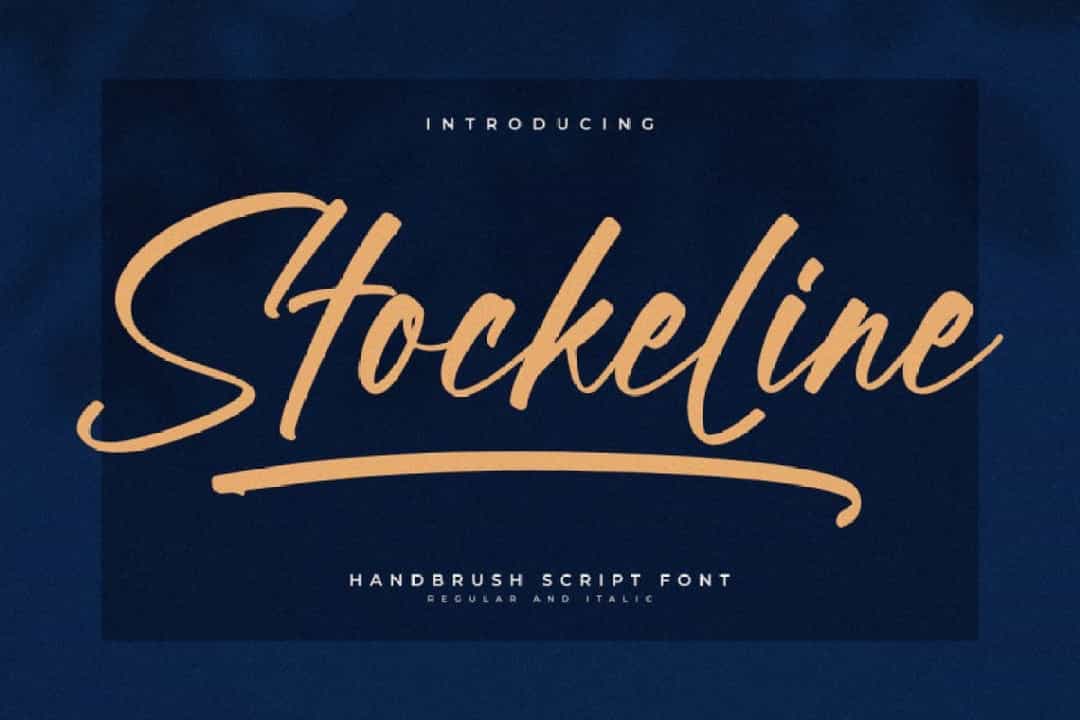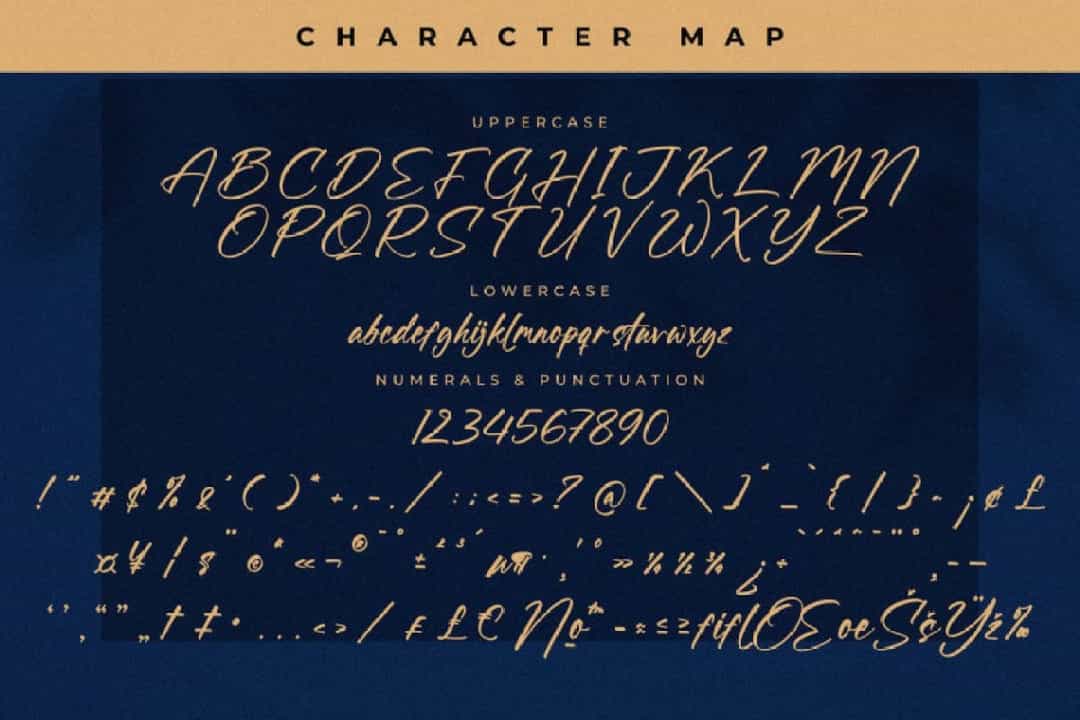
Discover Stockeline Font, part of the Brush collection—a versatile and unique font perfect for adding a personal touch to your projects. Download it for free and enjoy crafting designs with style, from invitations to social media posts. This font is available exclusively for personal use, giving you the freedom to create without limits. Unlock your creativity with Stockeline Font today!
Glorytype Studio’s Stockeline Handbrush script Font is perfect for use in any project requiring a gorgeous script style font, including logos, branding and homeware designs for products like mugs or packaging for shopping bags; posters and book covers; name cards invite cards cards labels photos watermarks plus special events as well as any other projects needing one of its gorgeous script styles.